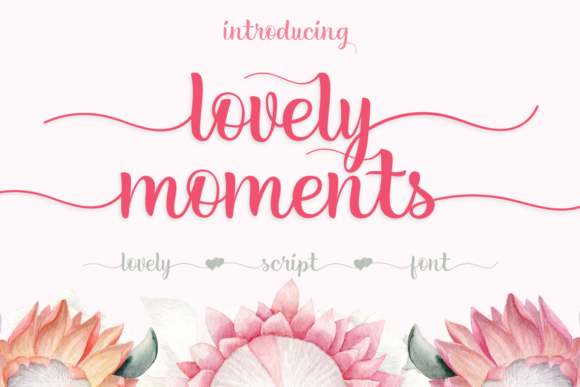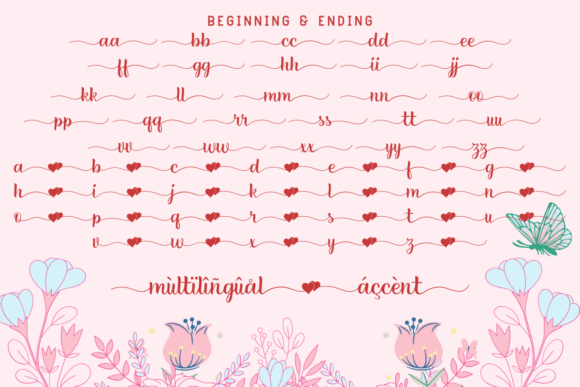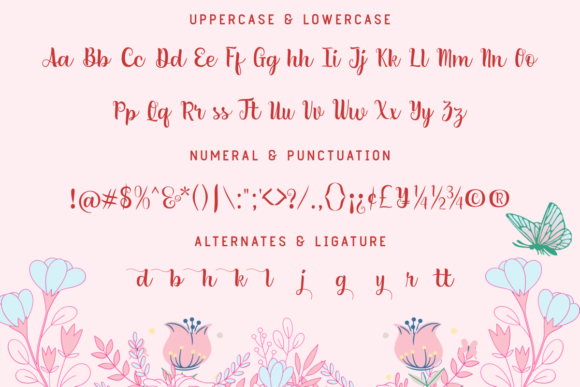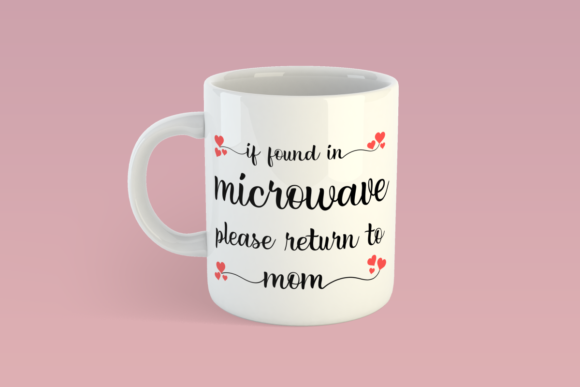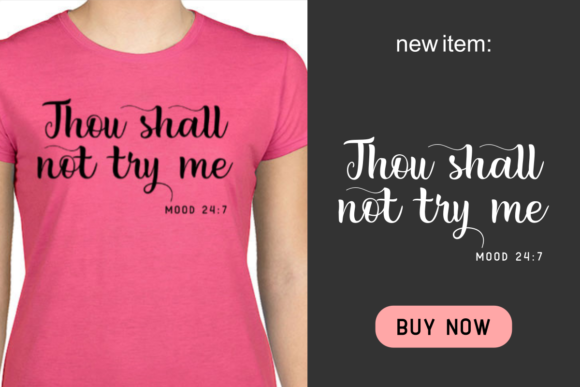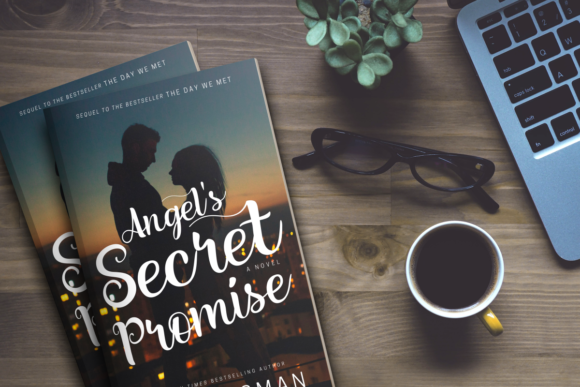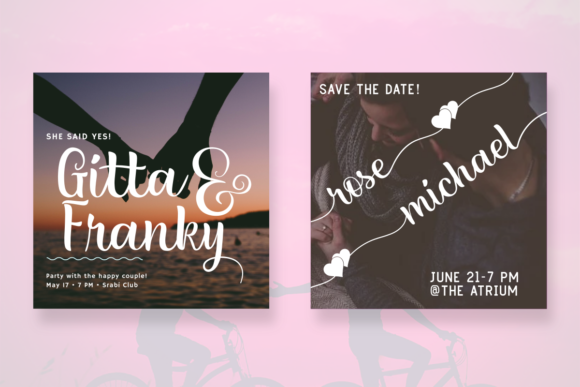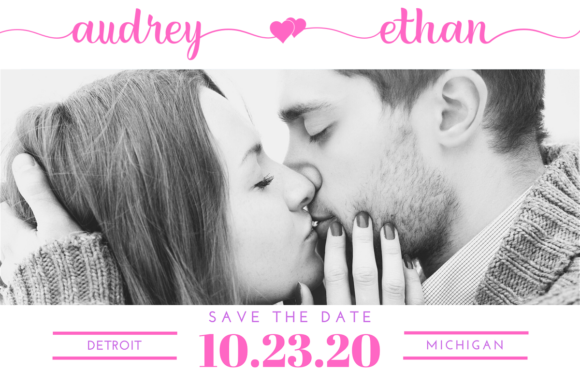
Lovely Moments Font
About Lovely Moments Font
Lovely Moments is a cute handwritten font. It features amazing swashes and alternates. Use it to add a romantic touch to your projects.
This font is PUA encoded which means you can access all of the romantic glyphs and swashes with ease! It also features a wealth of special features including alternate glyphs and ligatures.